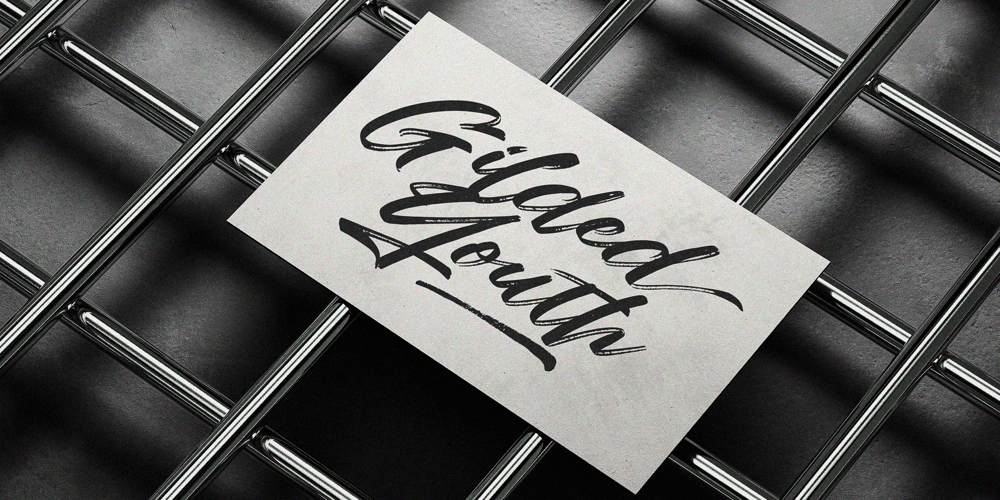
Soulstice Brush Script Font Family was designed by Muhammad Rizaldi and published by Inviline. Soulstice Brush Script contains 1 styles and family package options. Meet Soulstice, a bold alternate brush script that combines dynamic strokes with a handcrafted feel. Perfect for logos, packaging, and social media, this font brings expressive style and personality to your creative projects